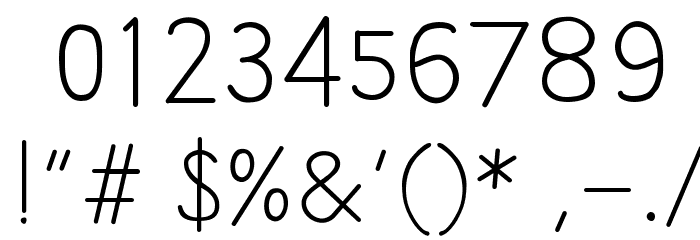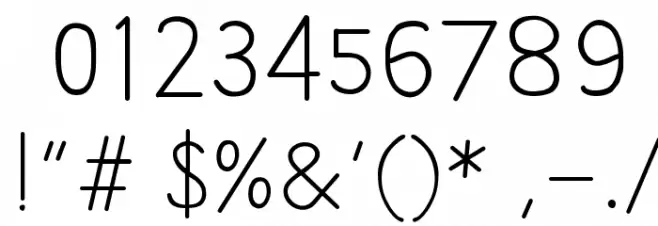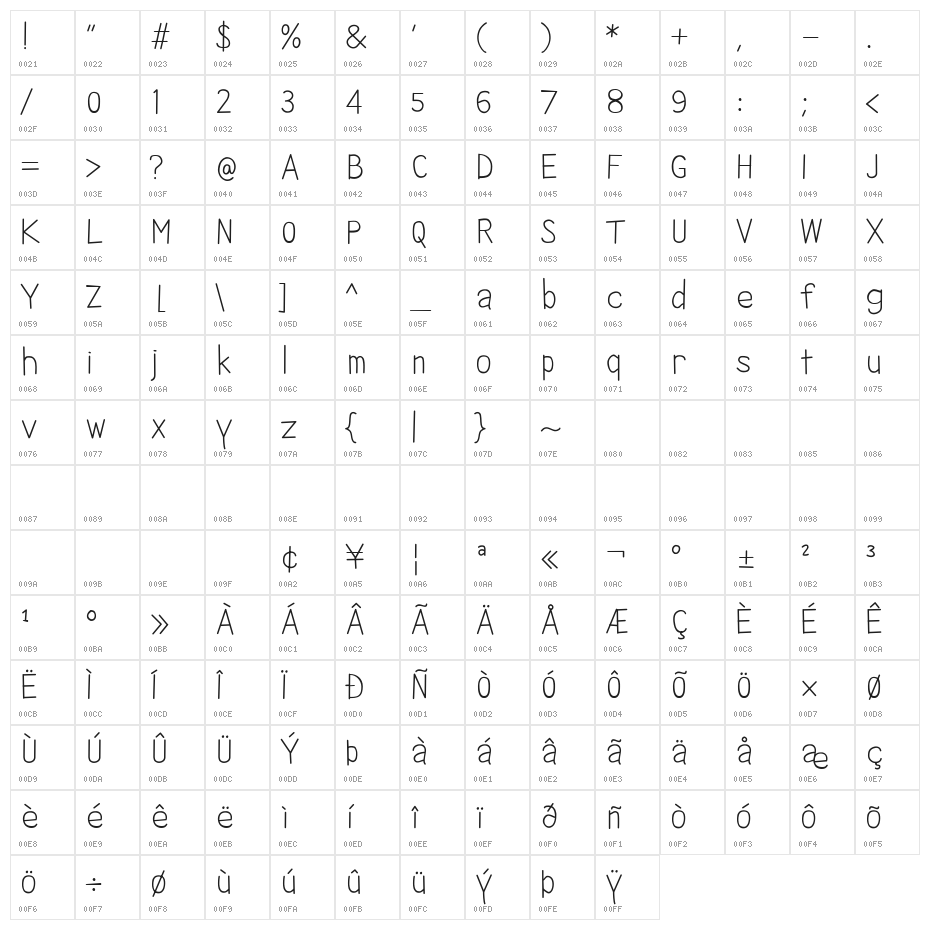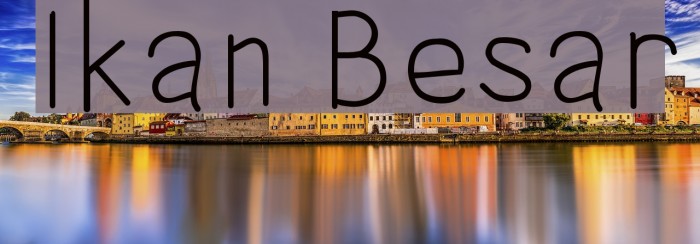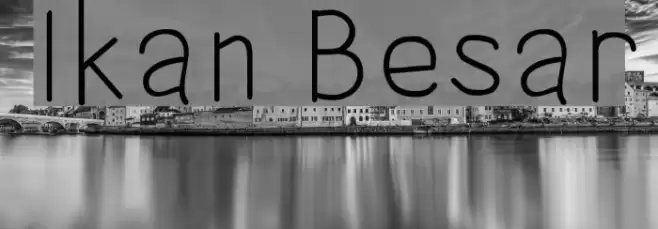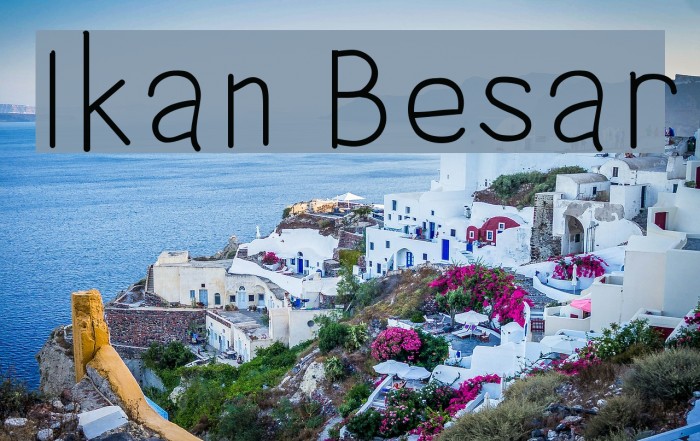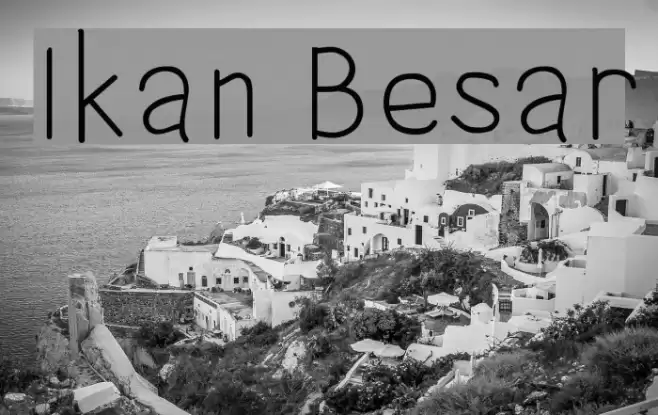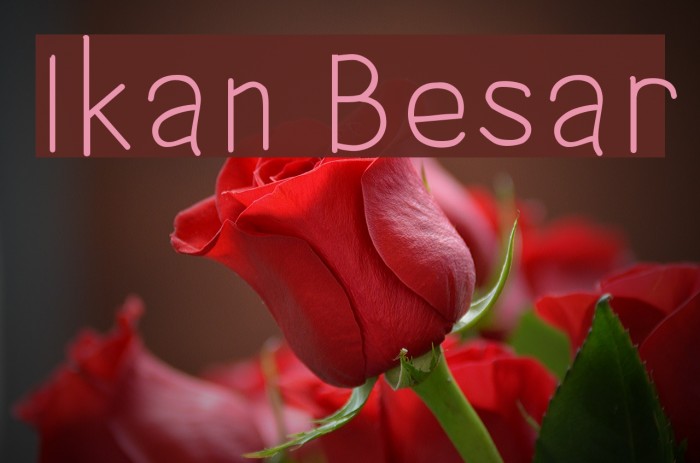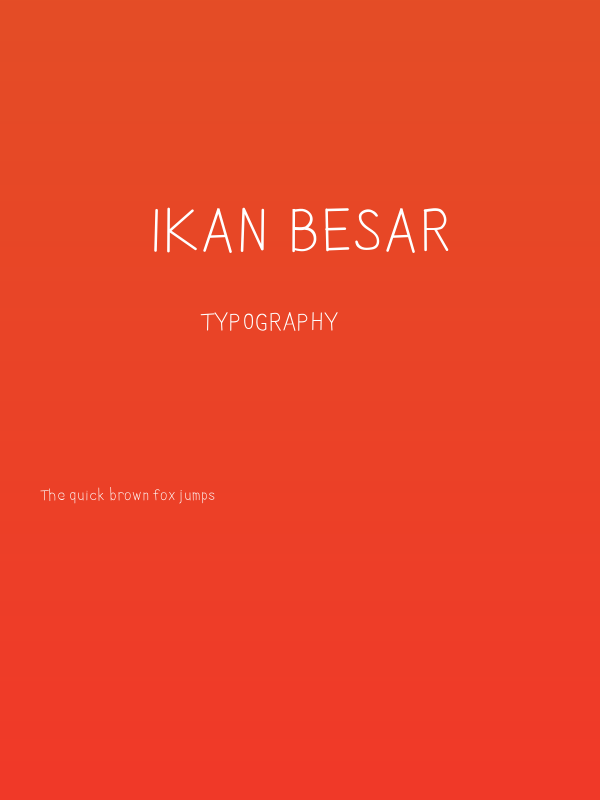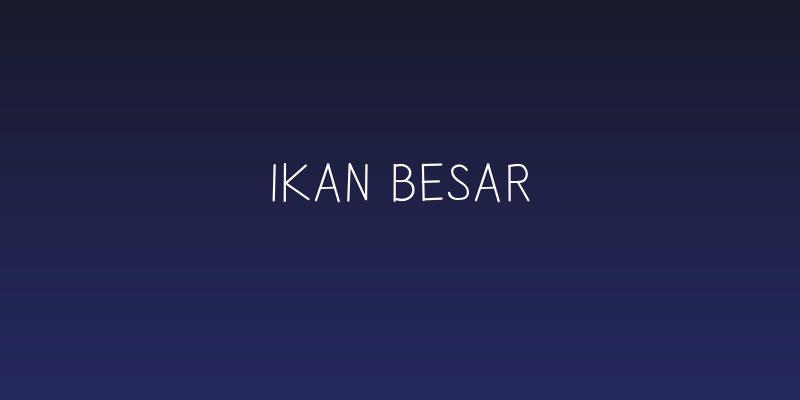
Ikan Besar Font
Ikan Besar Description
This font features a clean and minimalist design with a geometric structure. The characters are evenly spaced, providing a balanced and harmonious appearance. The uppercase and lowercase letters maintain a consistent height, contributing to a uniform look. The numerals are straightforward and align well with the overall style. Special characters are designed with simplicity in mind, ensuring they blend seamlessly with the alphabetic characters. The thin strokes and lack of serifs give it a modern and sleek aesthetic, making it suitable for contemporary design projects.
| Proposed Projects | Ideal for branding, digital interfaces, editorial design, and minimalist posters. |